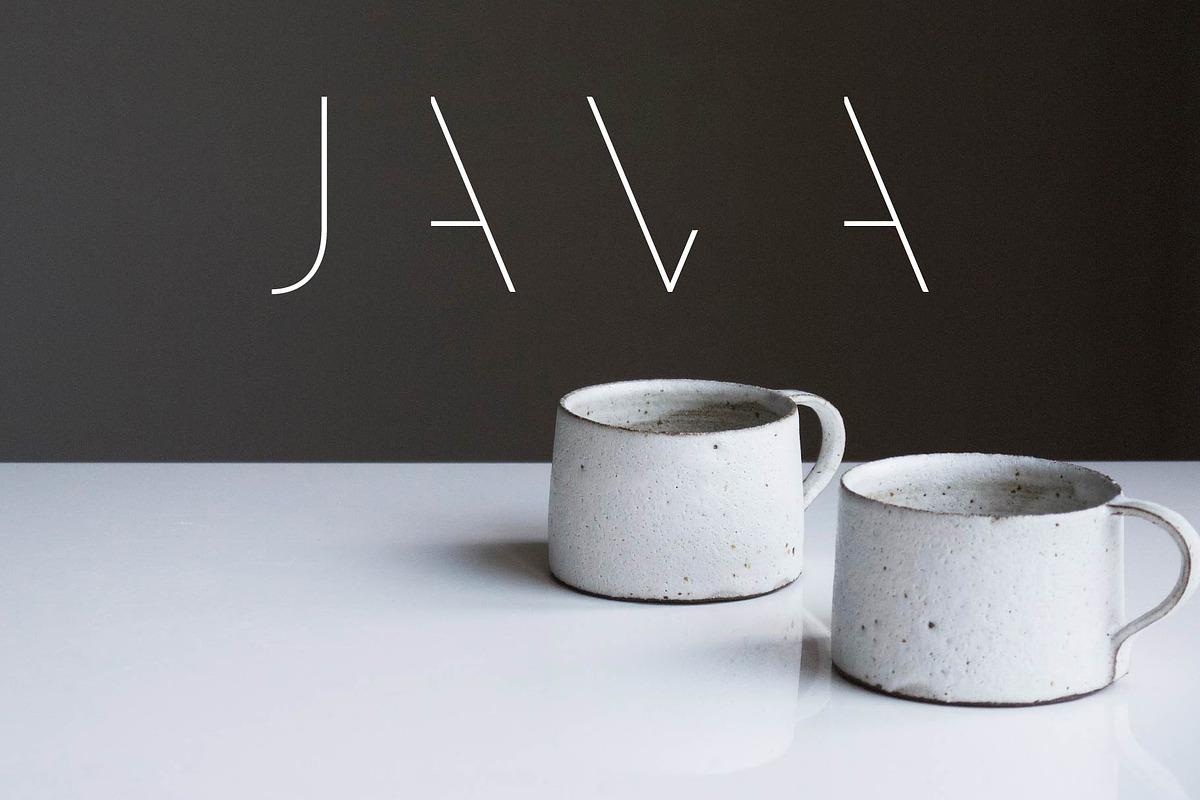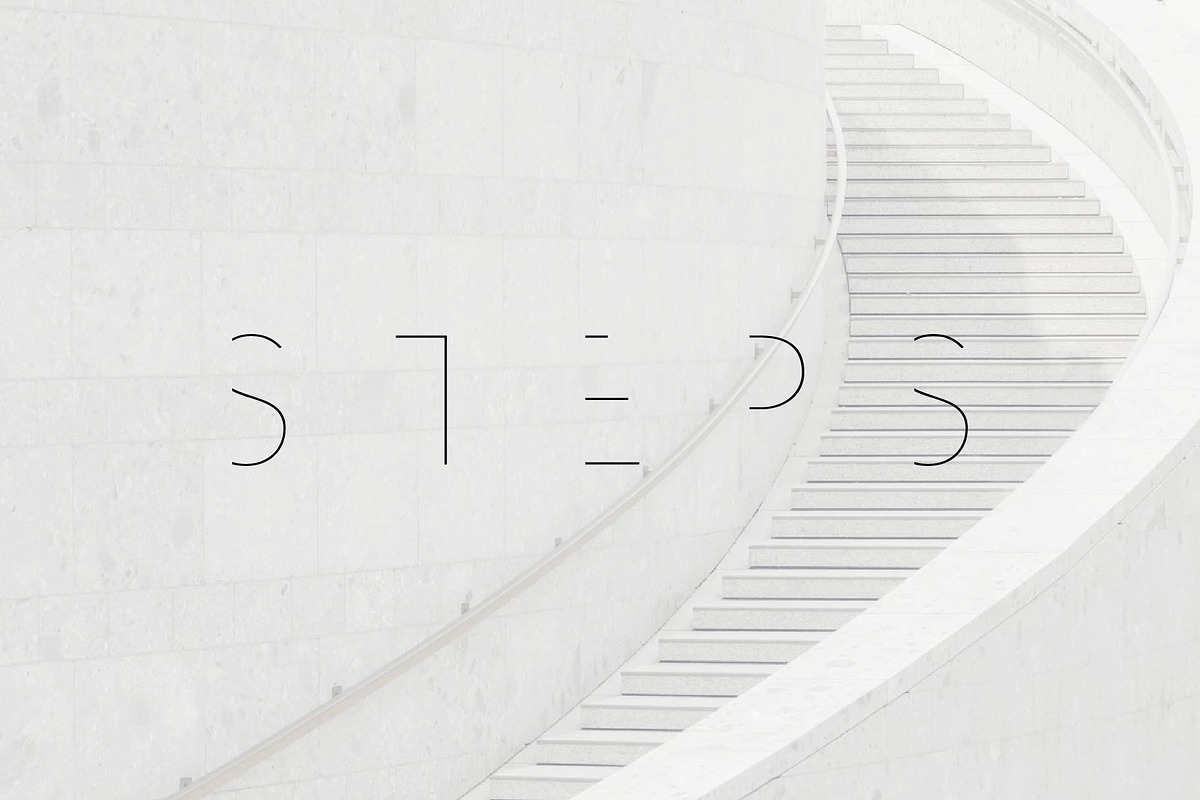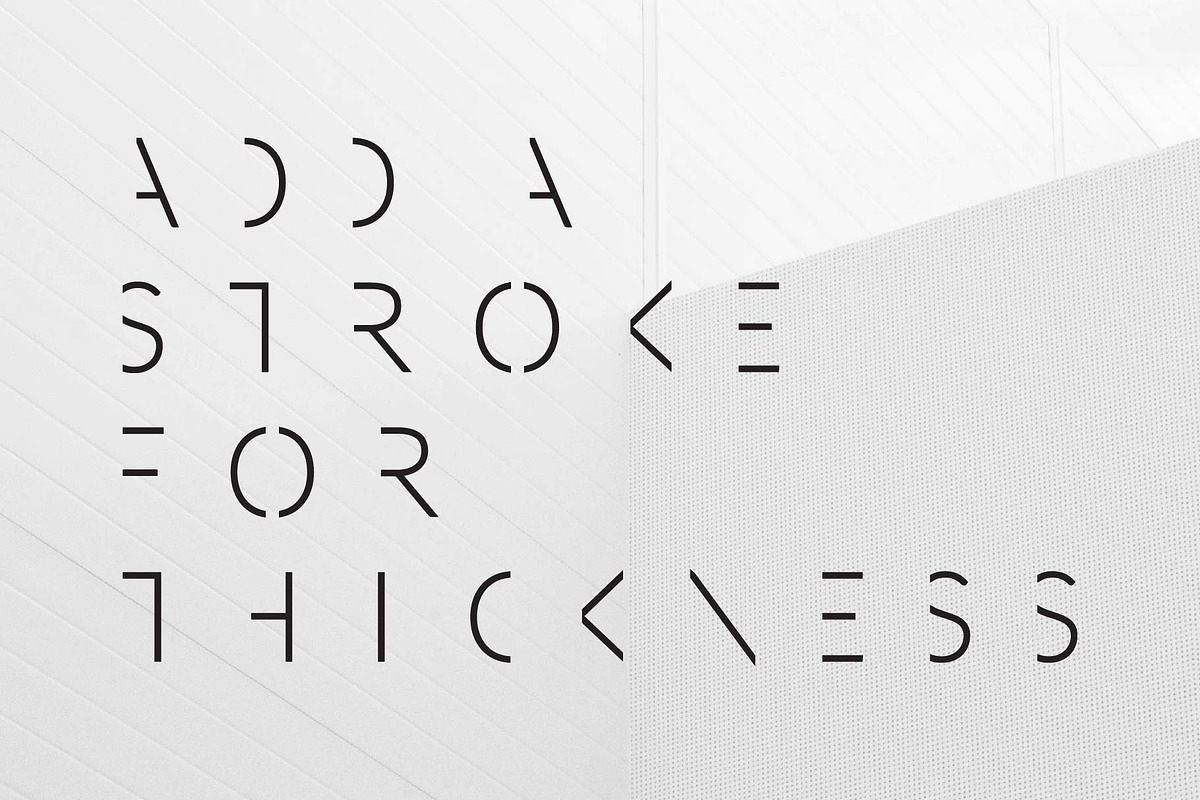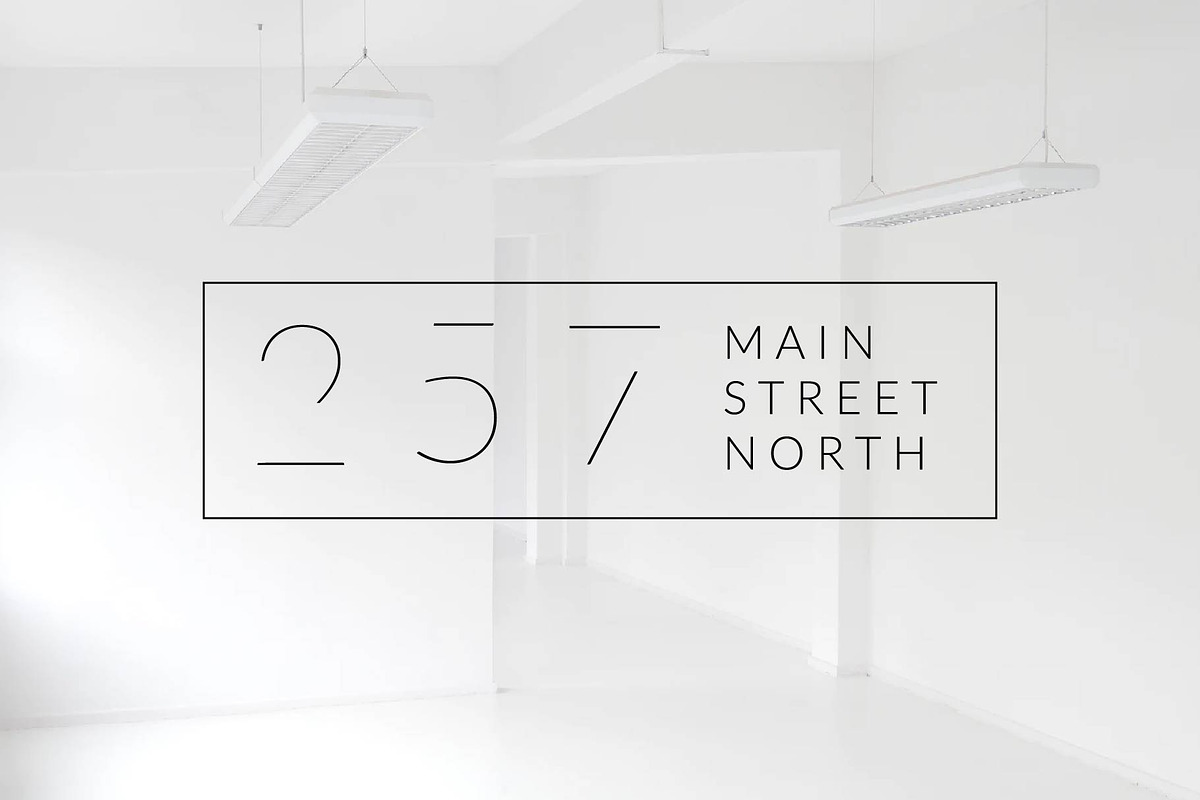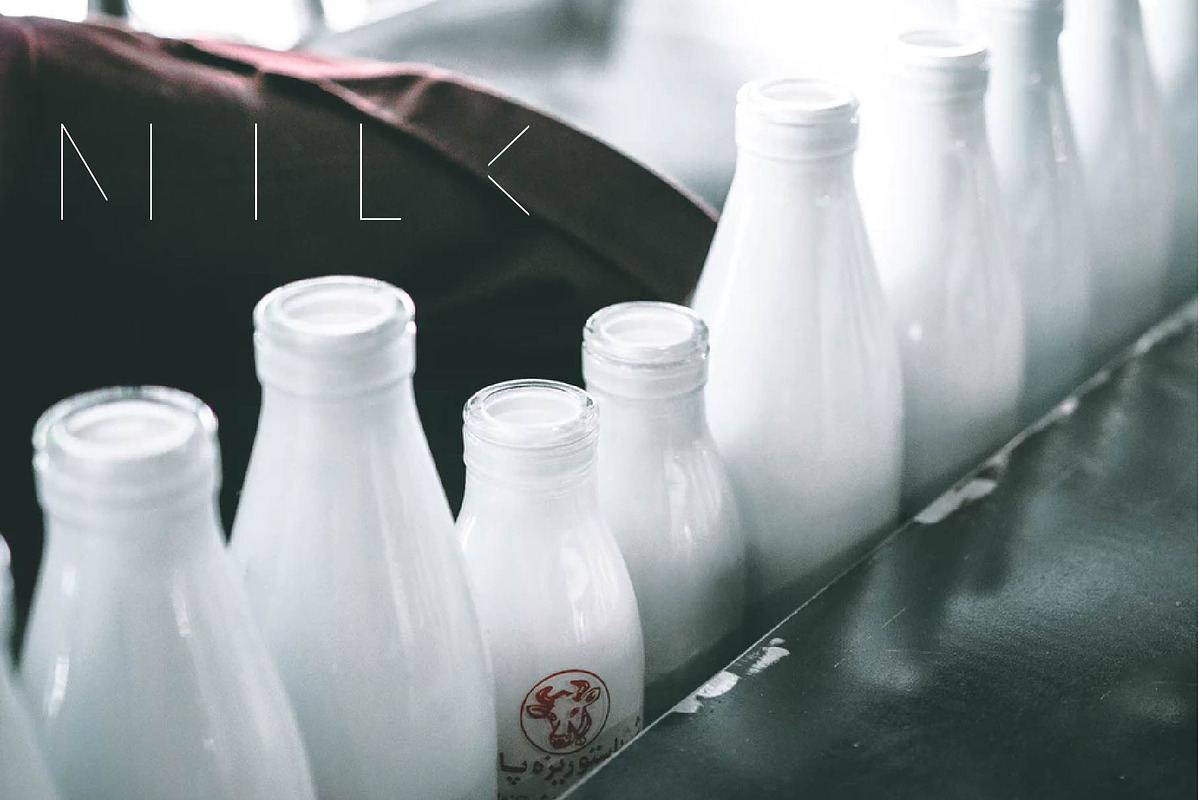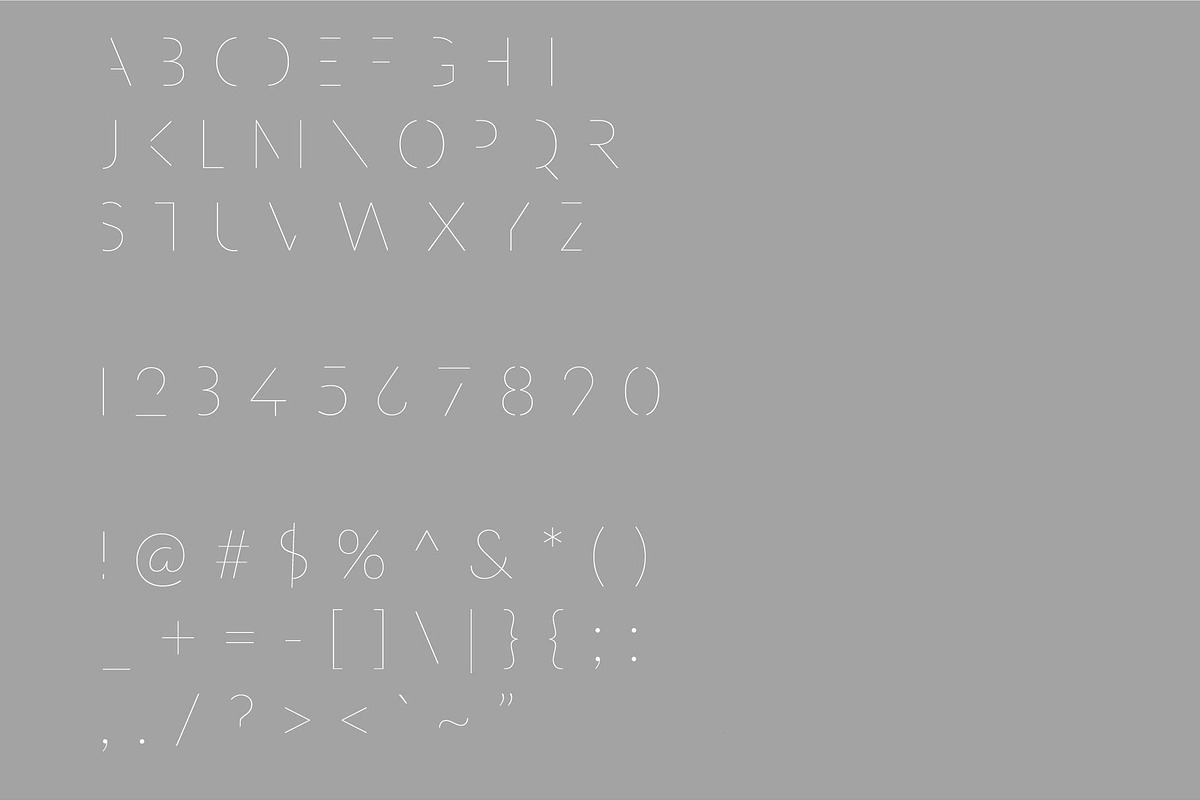
SEA SPRAY - minimal logo font
Minimalism is the only trend that is not a trend. Human evolution means that we are always looking to simplify the way we communicate. We don't need fully formed letterforms to make words, our brains will fill in the gaps!
Great for making modern wordmark logos! Awesome for fashion, architecture or creative logos.